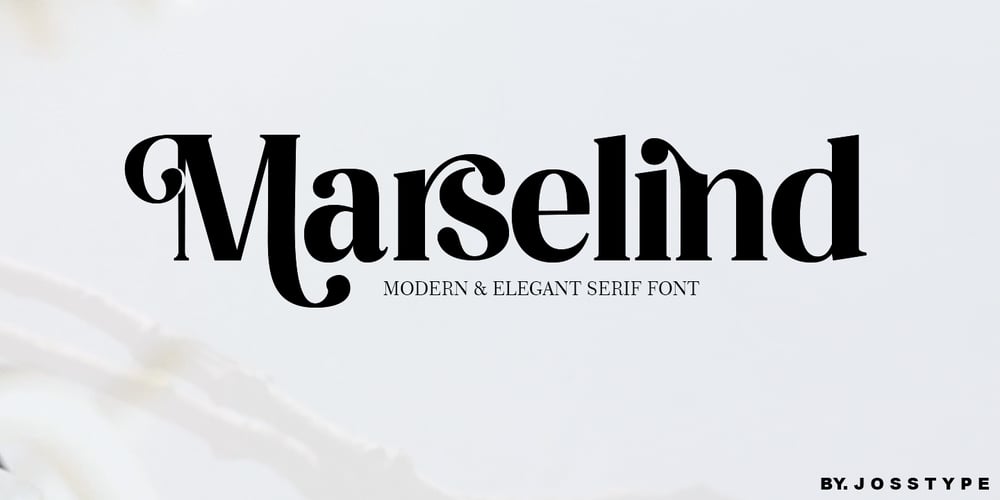
Marselind Font Family was designed by Teuku Zulfikar and published by Josstype. Marselind contains 4 styles and family package options. Marselid Serif. Marselid Serif.is a Serif Display Font with a modern, classy, fun, unique and versatile style. It looks amazing at display size and is easy to read in text size. This font also has lots of unique alternatives and binders that will make for stunning design projects. Marselid Serif. works well for branding projects, logos, wedding designs, social media posts, advertisements, product packaging, product designs, labels, photography, watermarks, invitations, or any project you are working on.File Includes:RegularSlantOutlineCondensed